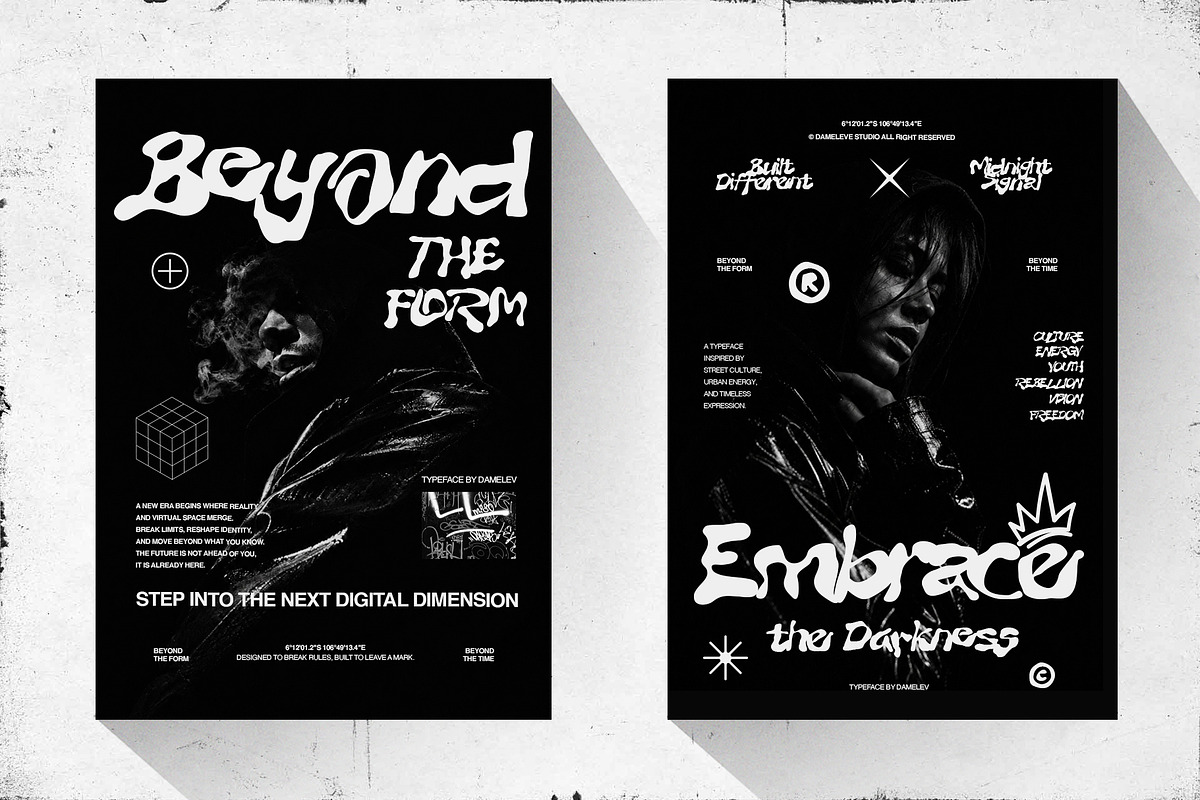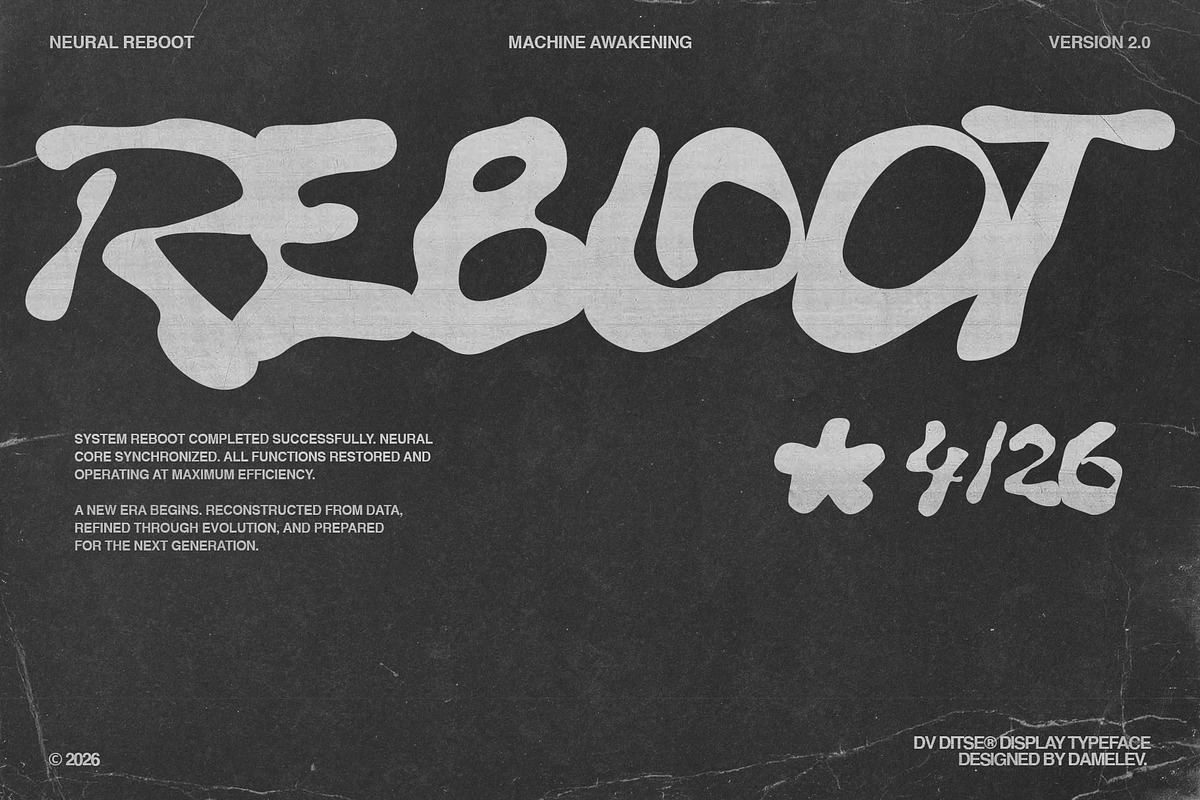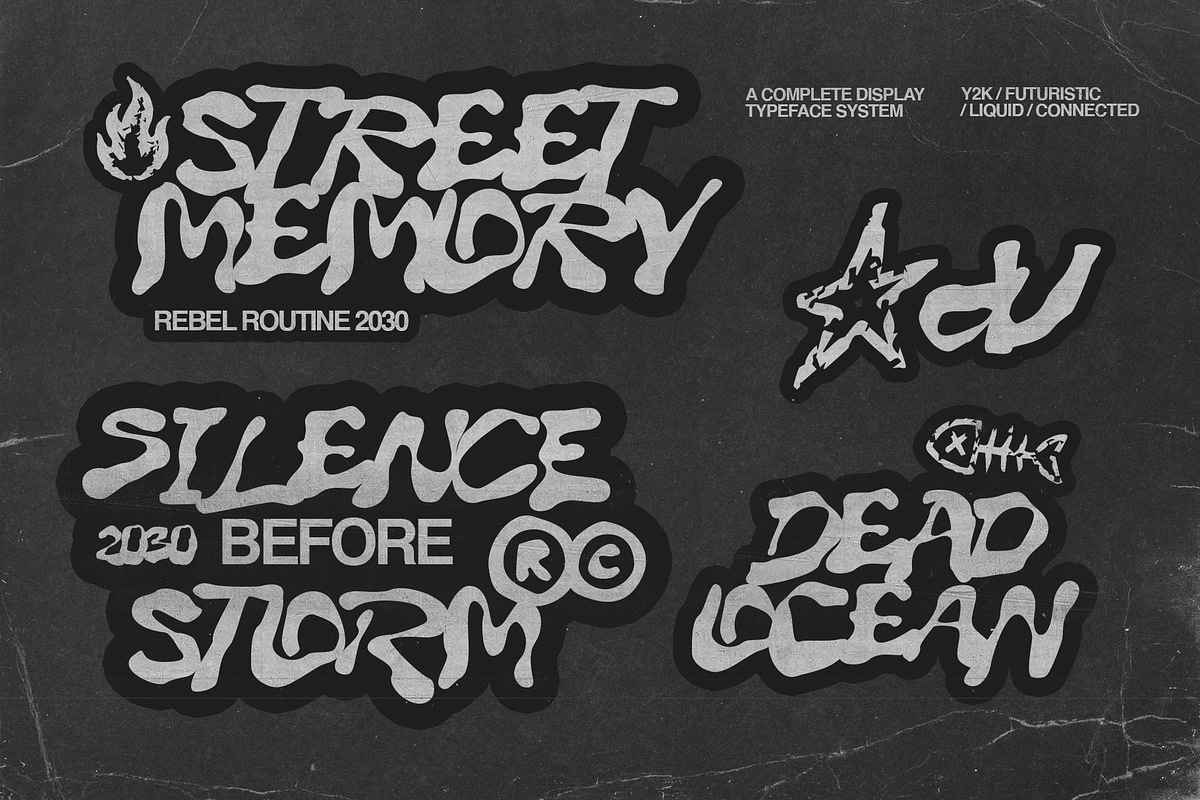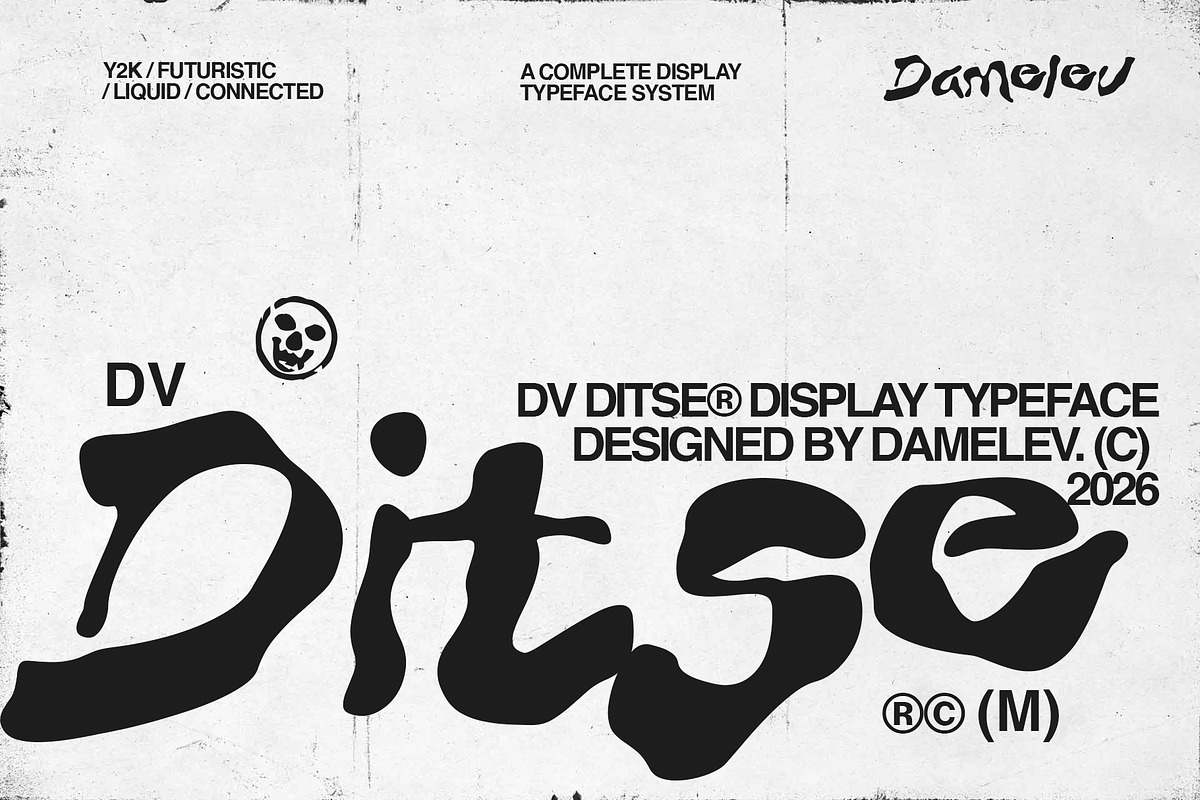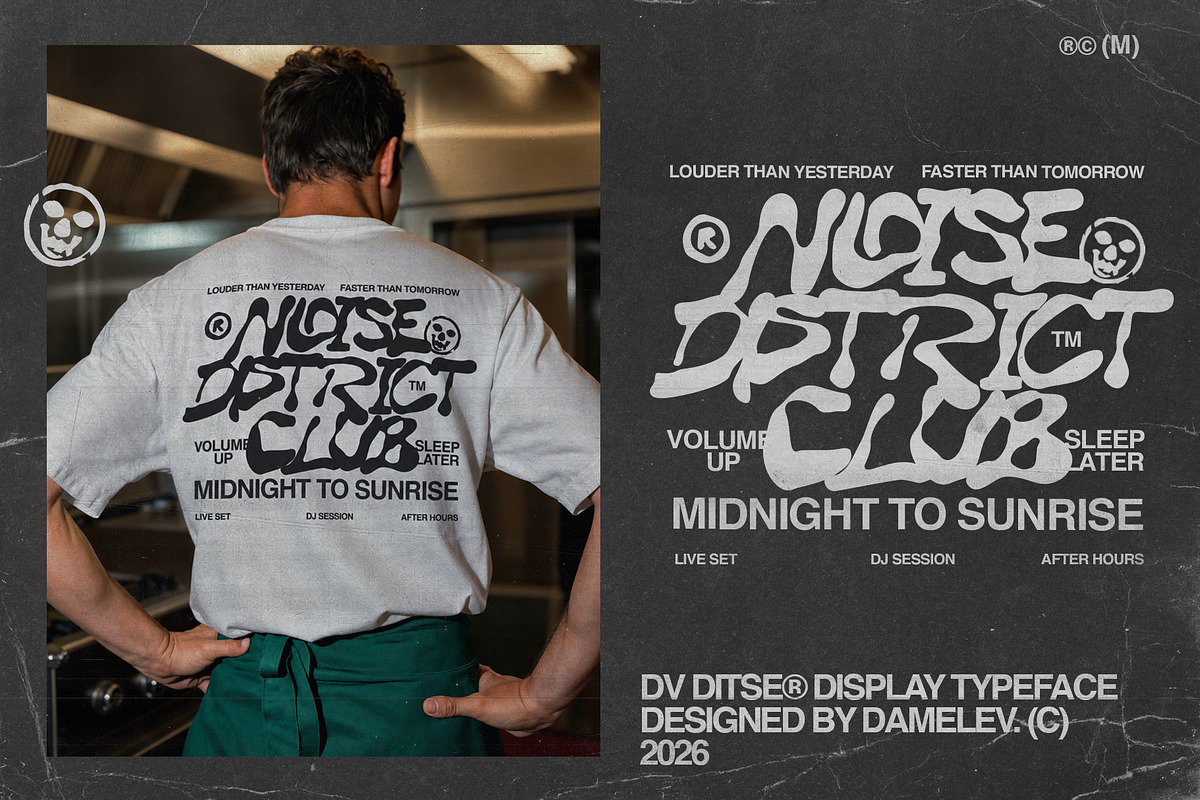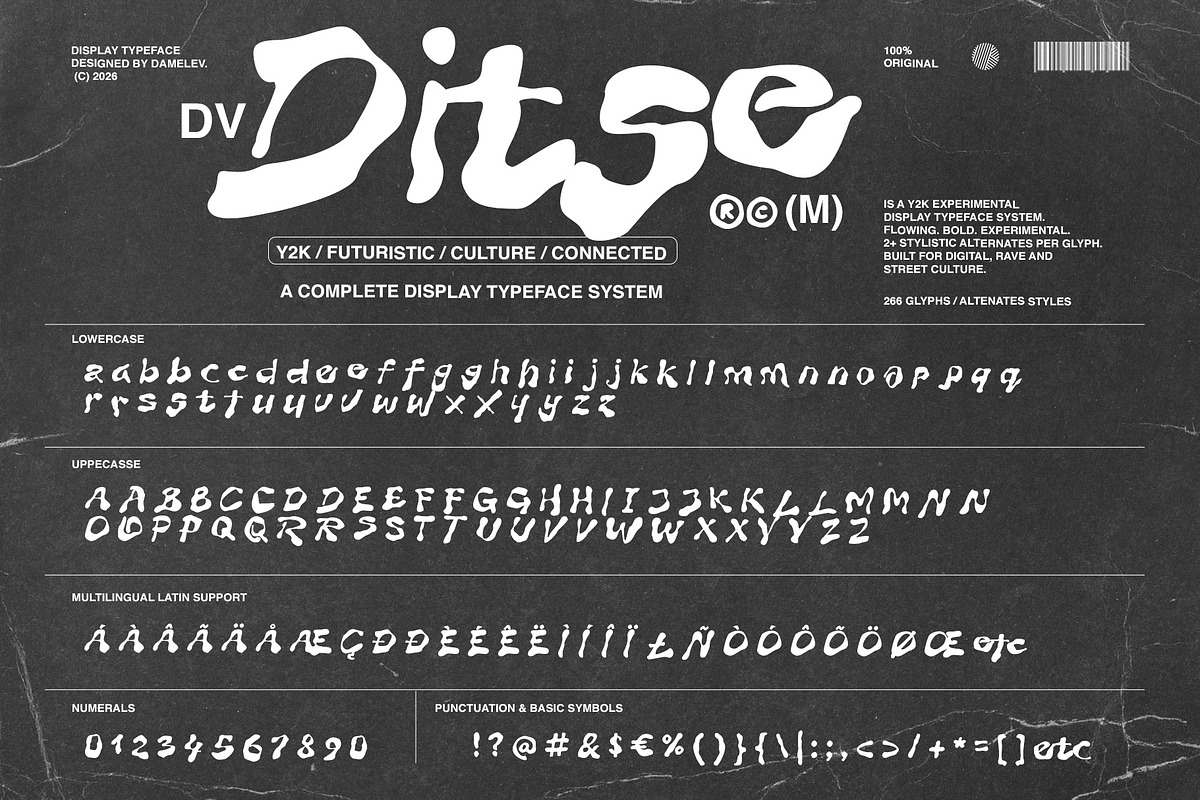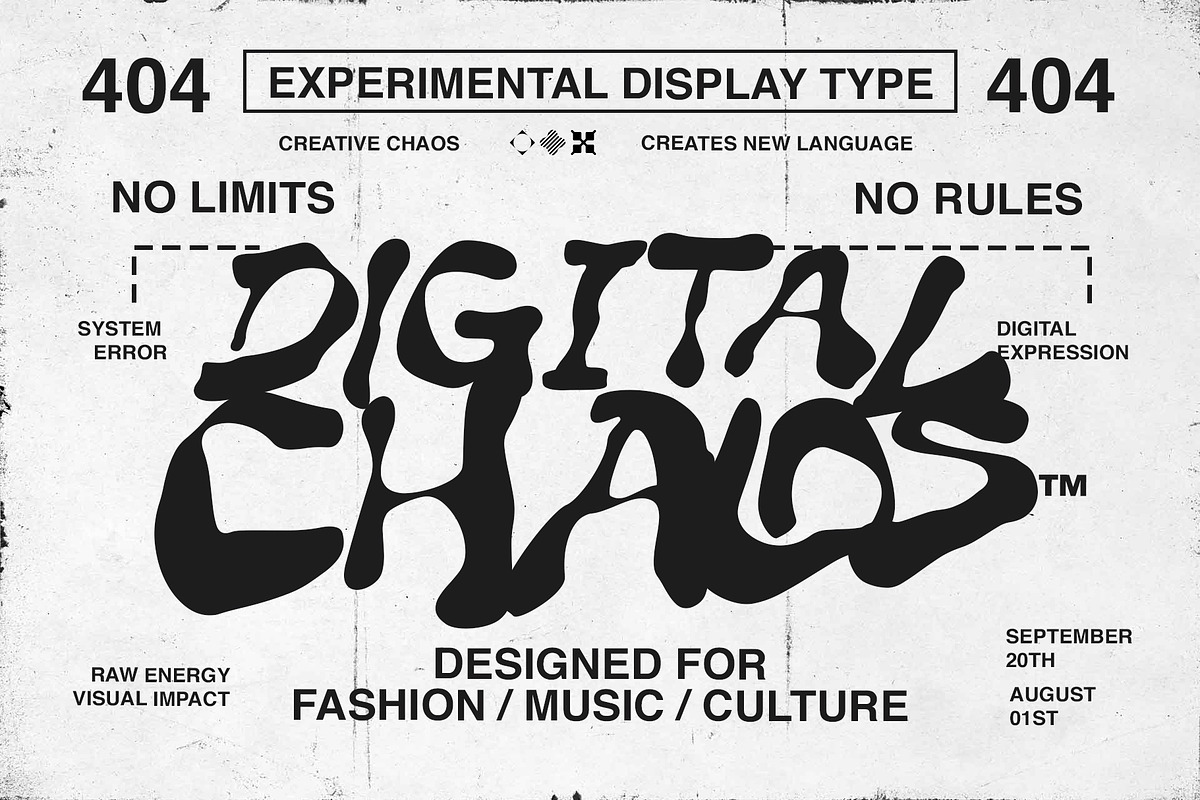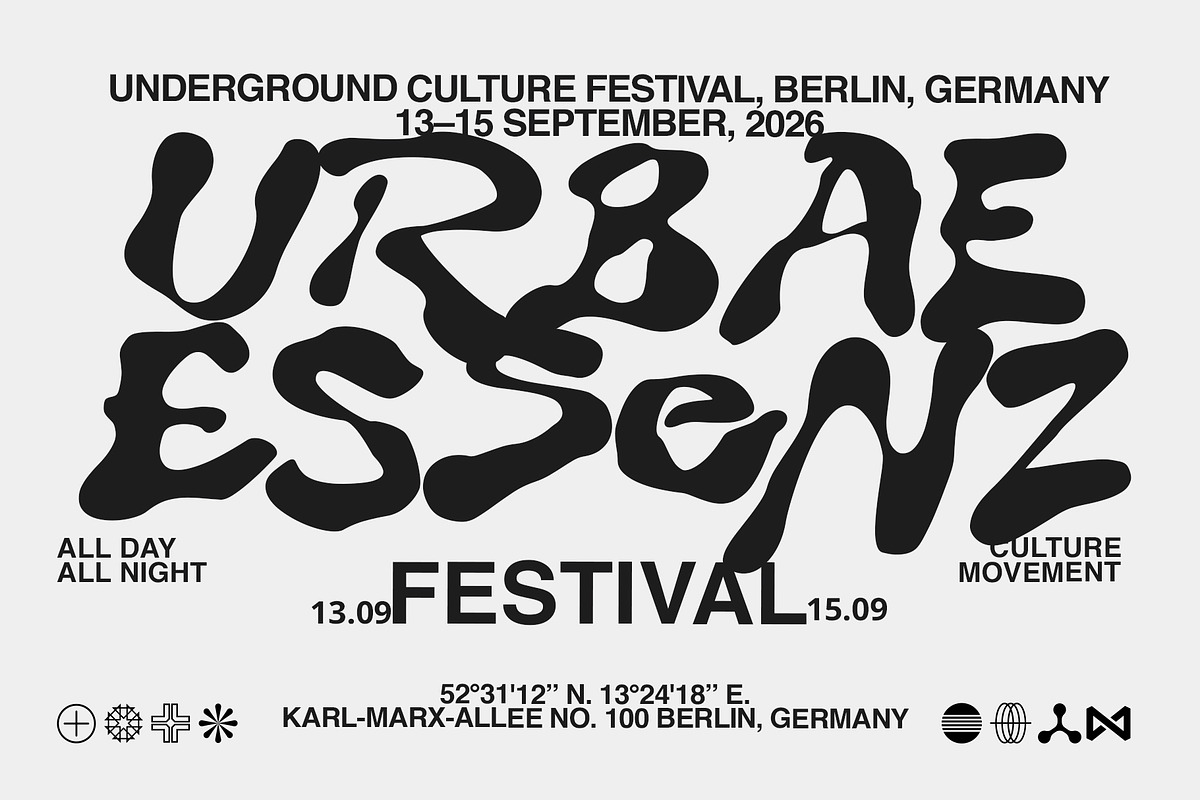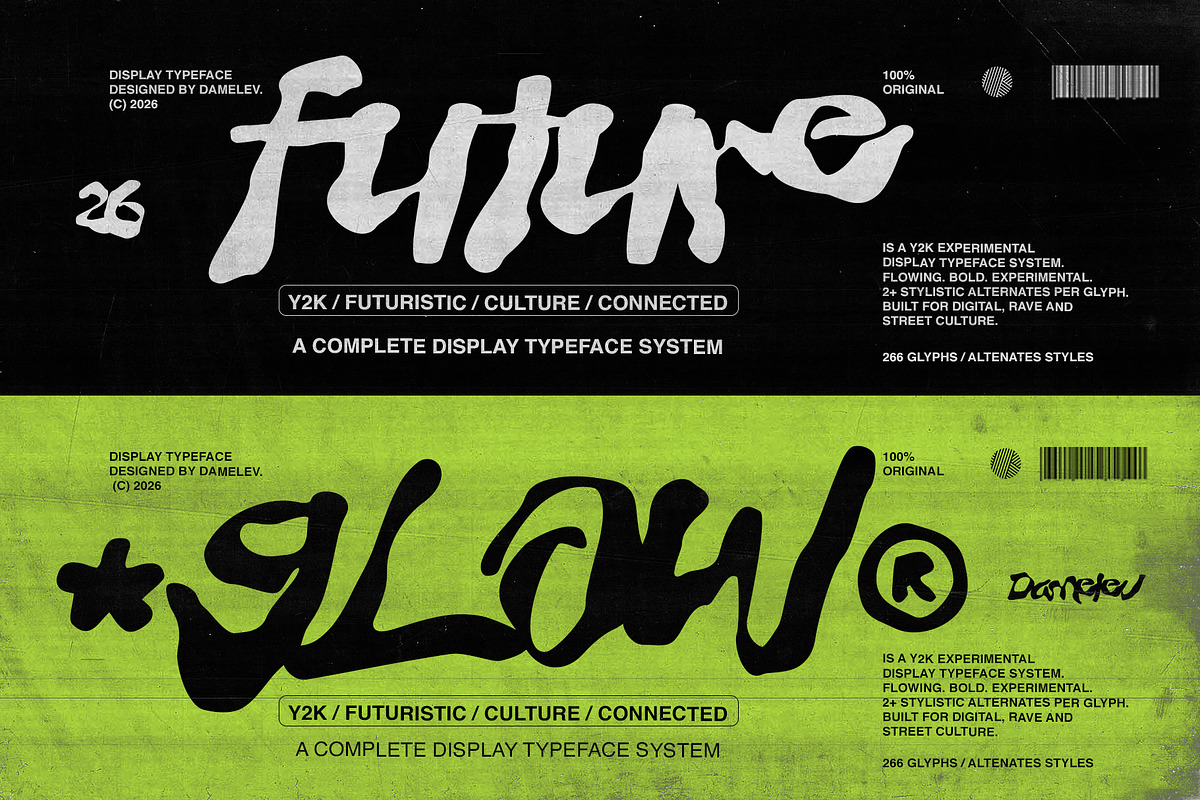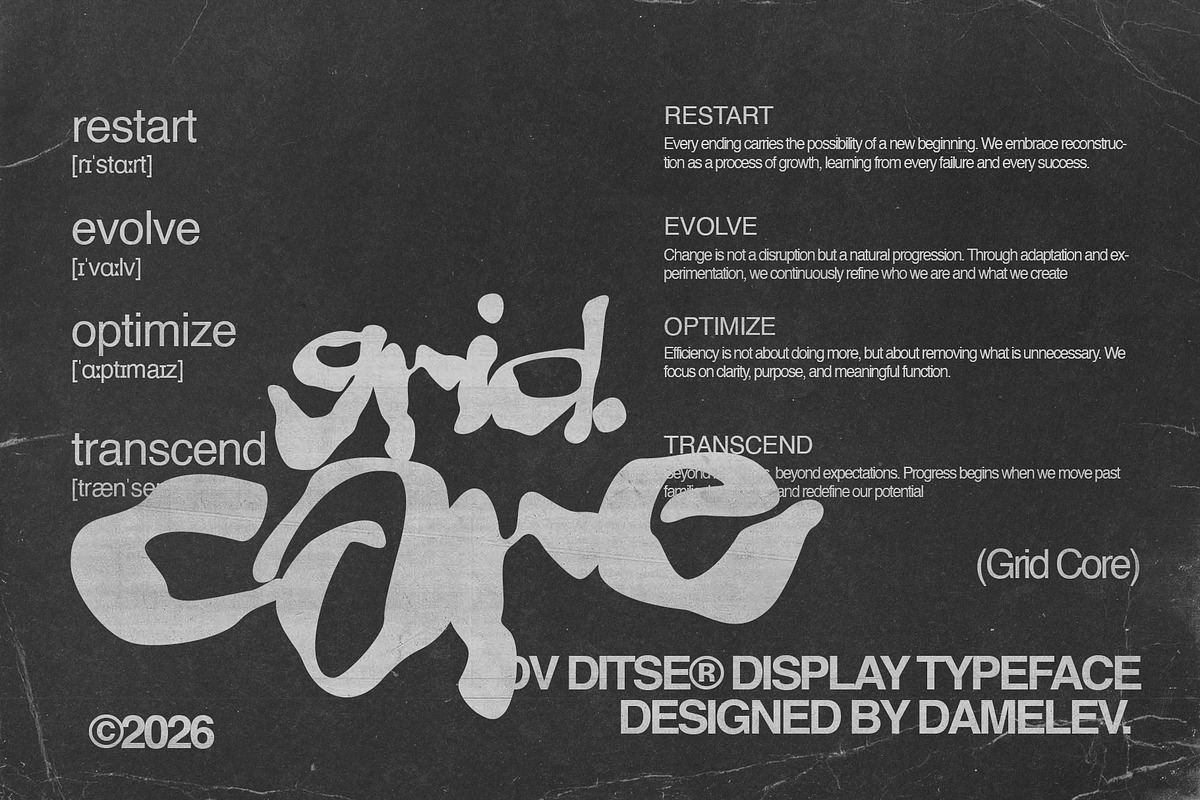
DV Ditse
DV Ditse is an experimental display typeface inspired by organic shapes and fluid movement. Its bold curves and unconventional forms create a distinctive visual identity, perfect for branding, posters, editorial layouts, and modern creative applications.
Style: Experimental Display • Organic • Artistic • Contemporary Character: Bold, expressive, unique, and visually striking